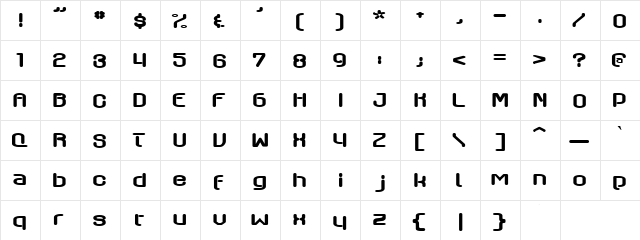
avax Regular
Design Context for avax Typeface
avax takes a measured approach to typography — its balanced proportions and neutral character make it a reliable workhorse for both digital and print work.